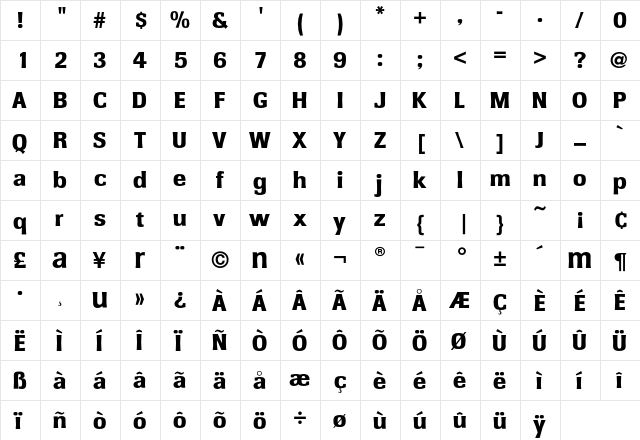
Cartel-Bld Regular
Design Context for Cartel-Bld Typeface
Cartel-Bld takes a measured approach to typography — its balanced proportions and neutral character make it a reliable workhorse for both digital and print work.